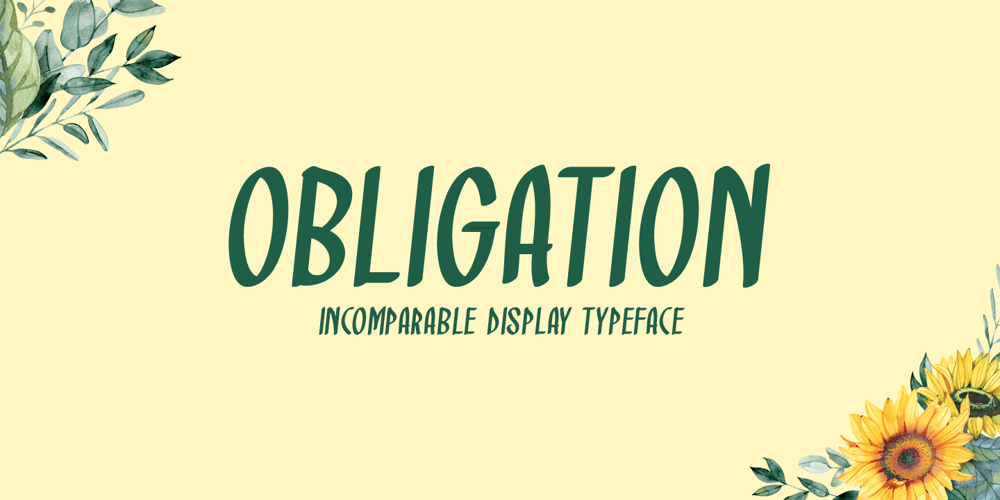
Obligation Font Family was designed by Md Shohail Bhuian and published by Seemly Fonts. Obligation contains 1 styles and family package options. Obligation is a cute and casual display font. No matter the topic, this font will be an incredible asset to your fonts’ library, as it has the potential to elevate any creation.